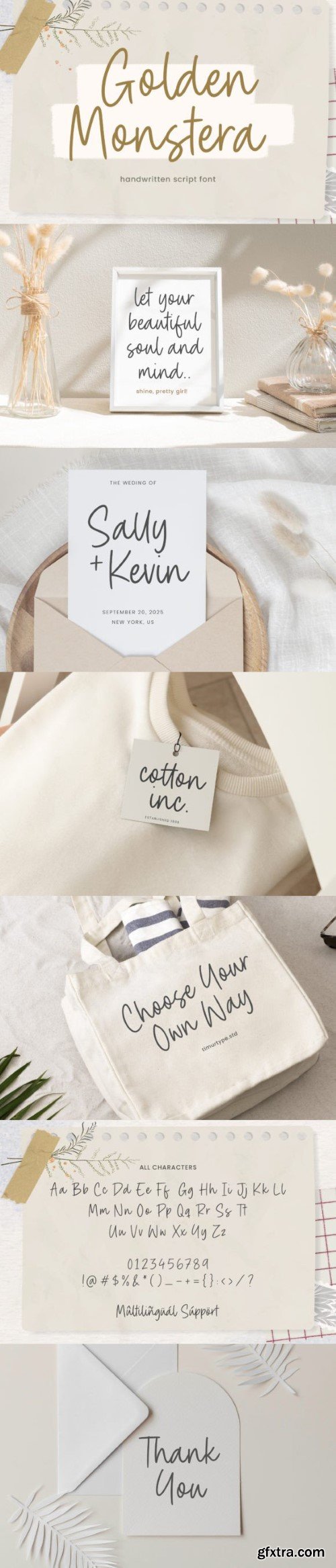
黄金巨叶字体
Introducing by Timur type
Proudly Present, Golden Monstera
Golden Monstera A Handwritten Script Font , which was created with great care and specially created for you
Golden Monstera is perfect for product packaging, branding project, megazine, social media, wedding, or just used to express words above the background.